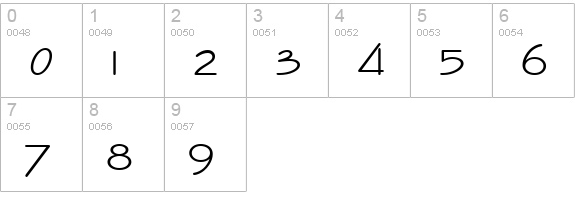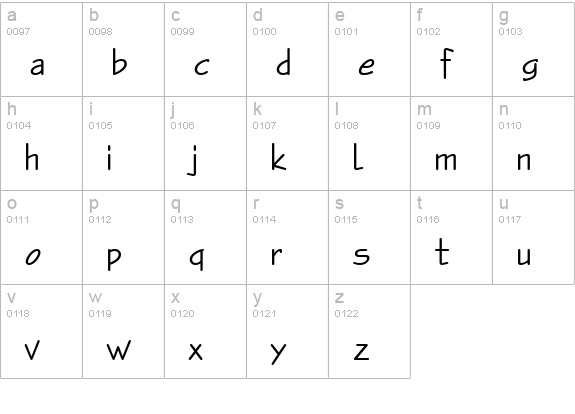
Introducing EnviroD, a modern and environmentally-friendly font designed to make a positive impact on your design projects. This unique typeface features sleek lines and a clean, minimalist aesthetic that is perfect for conveying messages of sustainability and eco-consciousness. With its sleek and contemporary design, EnviroD is ideal for a wide range of applications, from branding and packaging to web design and social media graphics. Best of all, EnviroD is available for free download at FontsMarket.com, making it accessible to all designers looking to add a touch of green to their projects. Whether you're working on a campaign for an eco-friendly brand or simply want to add a fresh and modern look to your designs, EnviroD is the perfect choice. Download it today and start creating stunning visuals that make a statement about your commitment to the environment.